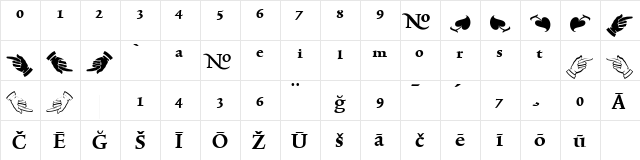
TriniteNo1 Bold
| Foundry | Copr. The Ensched Font Foundry |
Design Context for TriniteNo1 Typeface
TriniteNo1 takes a measured approach to typography — its balanced proportions and neutral character make it a reliable workhorse for both digital and print work. Its bold stroke weight gives it real presence on the page.